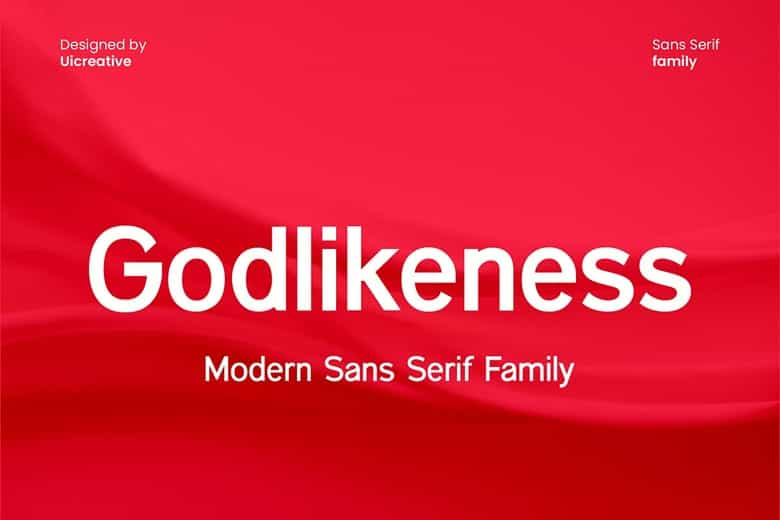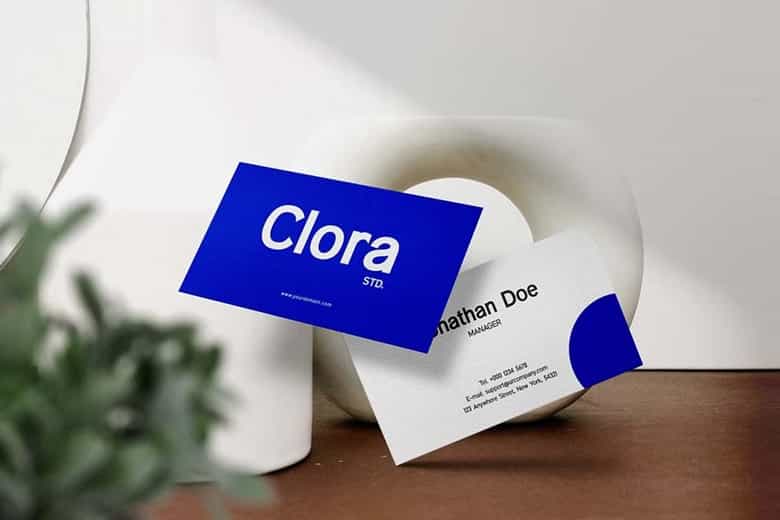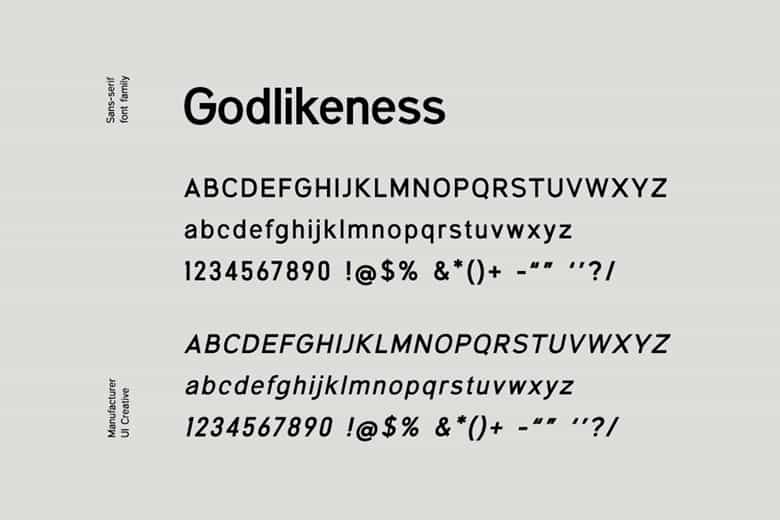
Godlikeness is a modern sans serif font family from the UICreative, a creative agency specializing in design works. Made with much attention to detail, in order to achieve the least possible waste of space. This font is versatile and can be used for a lot of projects including stationery, logo design, wedding related designs, typography quotes, magazine and book covers, website headers, branding and many more.